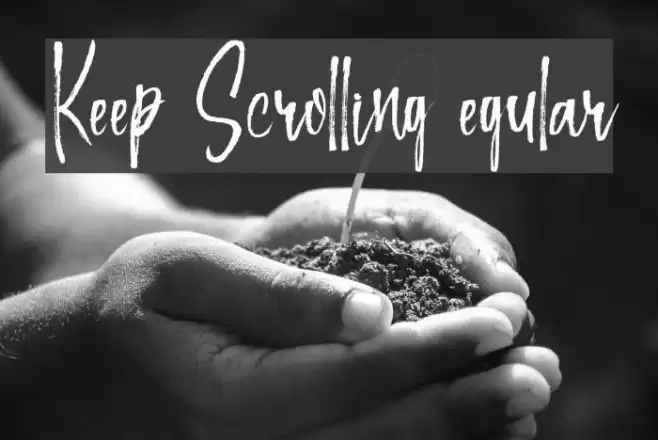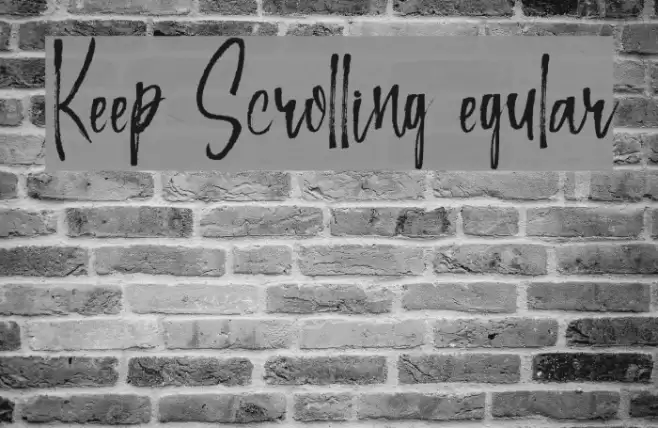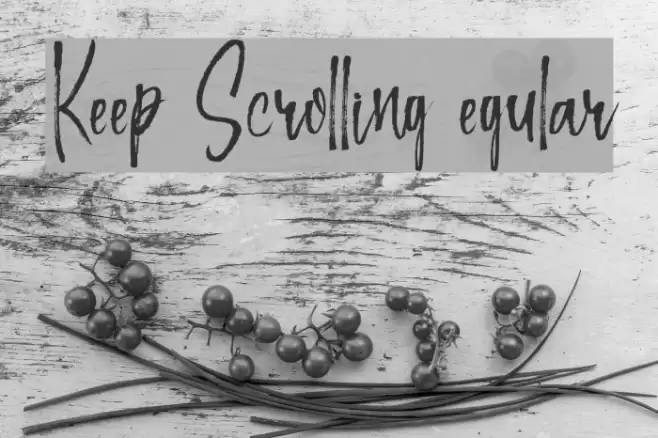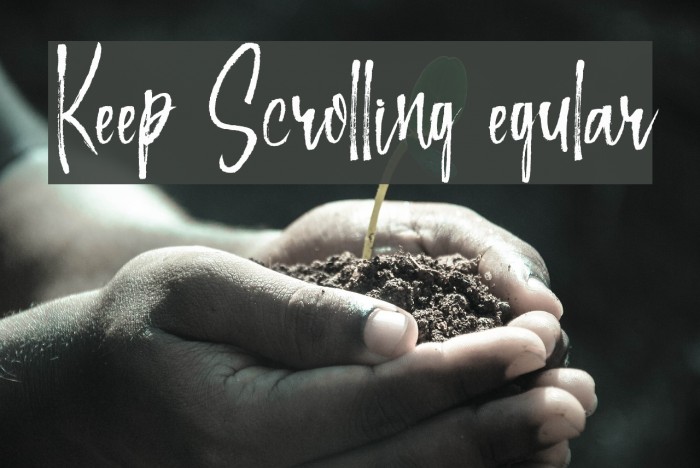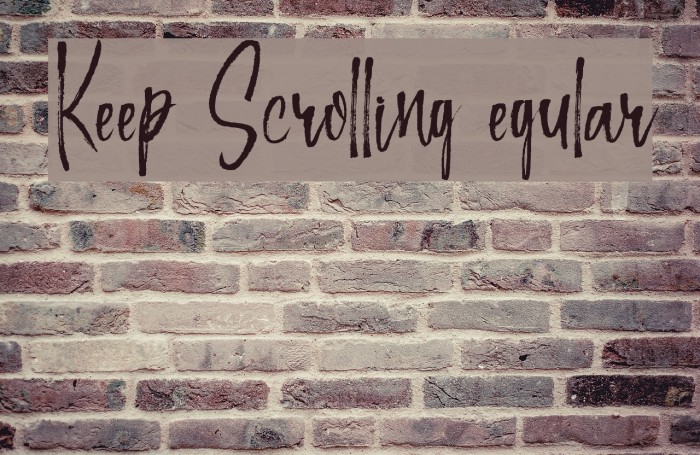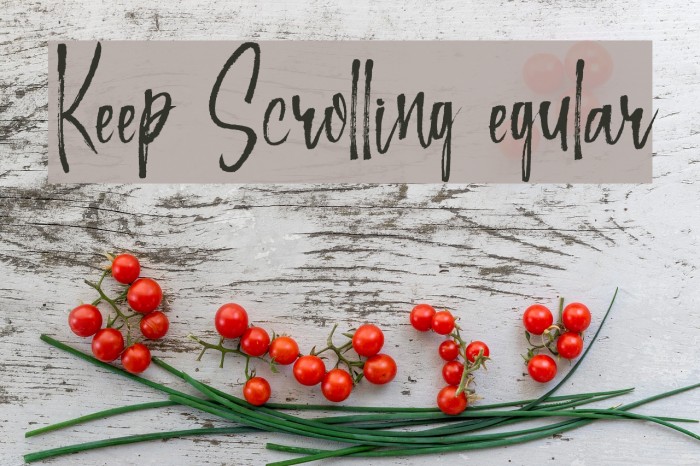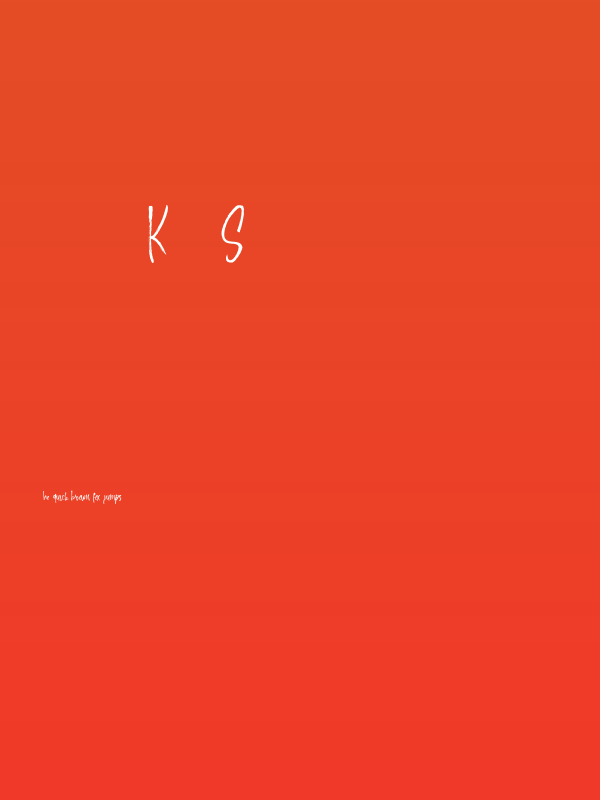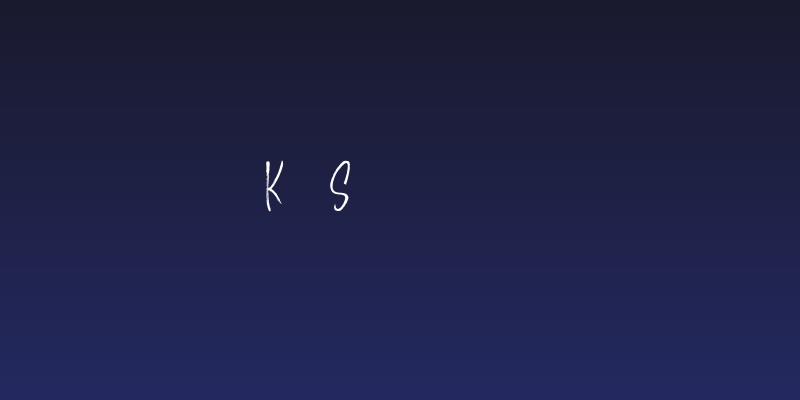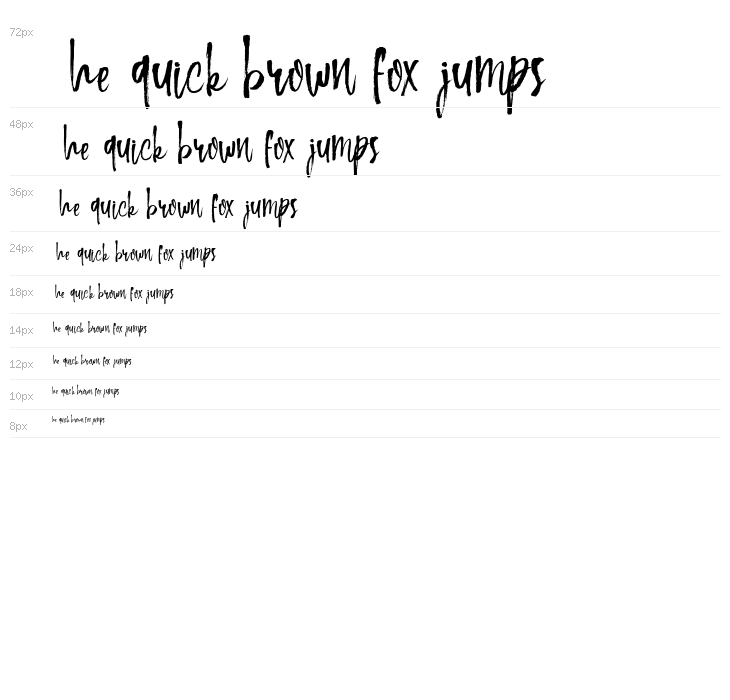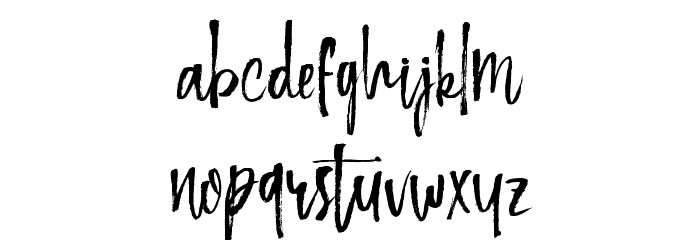
Keep Scrolling Regular Font
Keep Scrolling Regular Description
This font features a handwritten style with a casual and artistic flair. The strokes are uneven, giving it a natural and organic feel. The letters have a playful and dynamic appearance, with varying thickness in the strokes that adds to its charm. The uppercase letters are bold and prominent, while the lowercase letters maintain a consistent flow. This font is perfect for projects that require a personal touch, such as invitations, greeting cards, or creative branding. Its unique style makes it stand out, offering a blend of elegance and informality.
A playful handwritten font with dynamic strokes and an artistic flair from Handwritten fonts.
- Proposed Projects: Ideal for invitations, greeting cards, creative branding, and personal projects.
- Use Case: Logos, Headlines, Creative projects